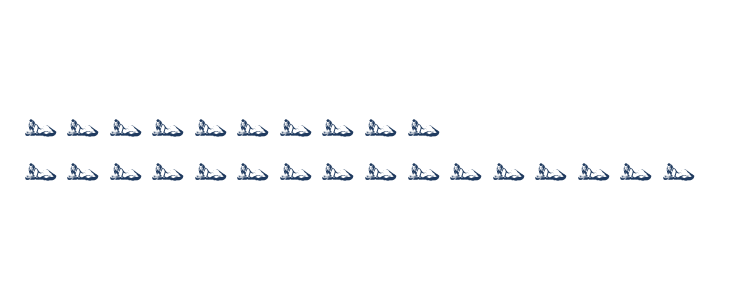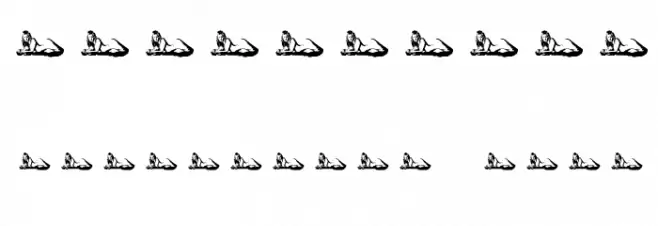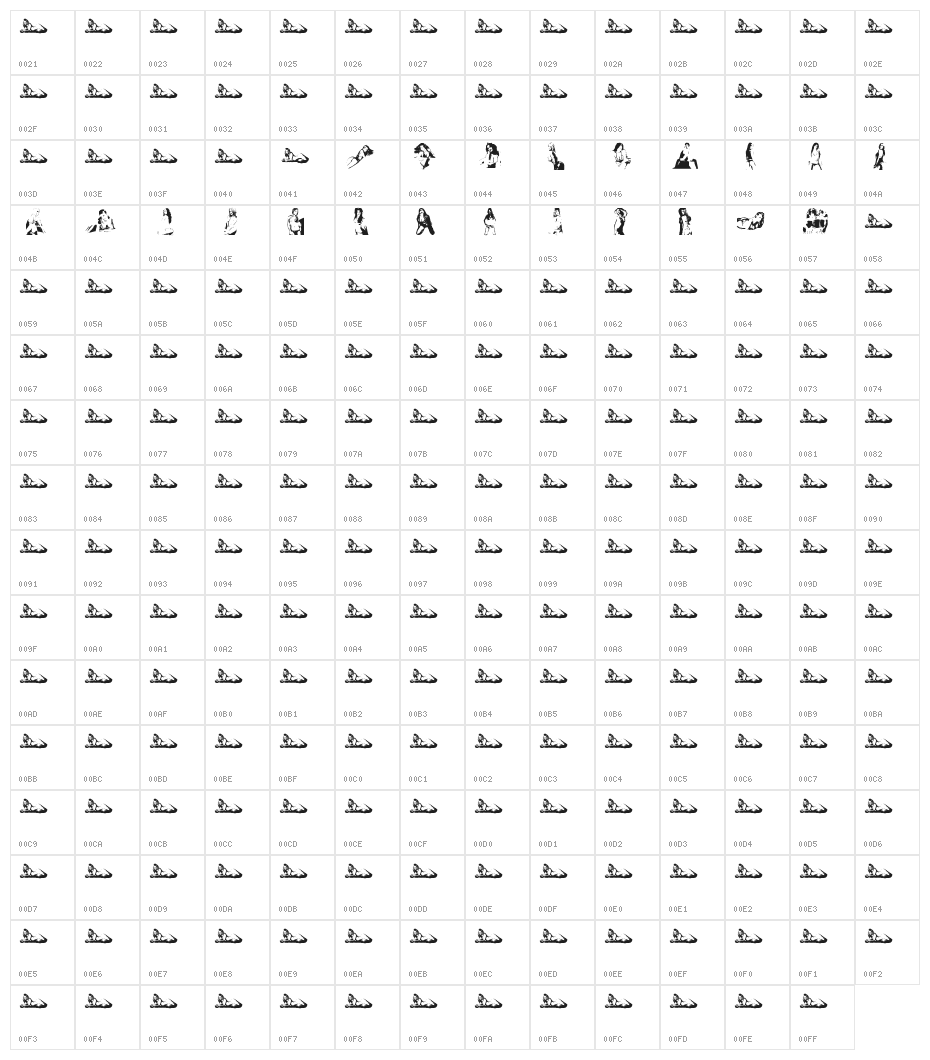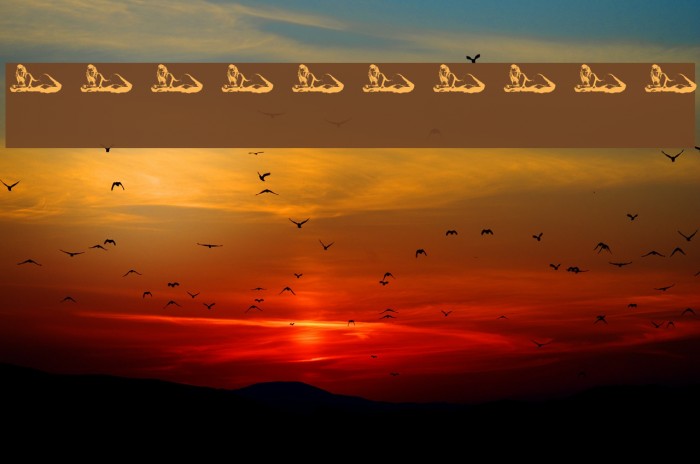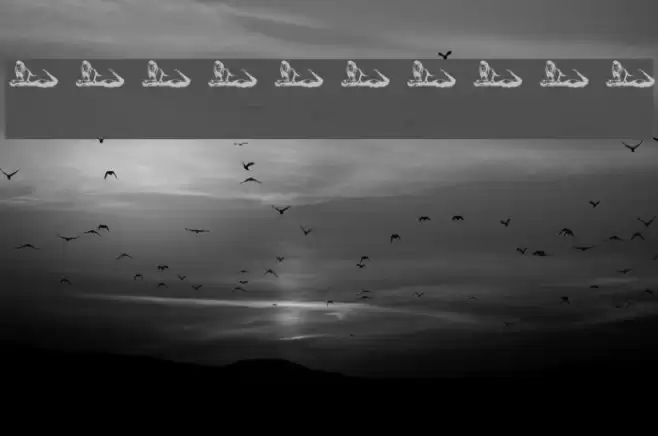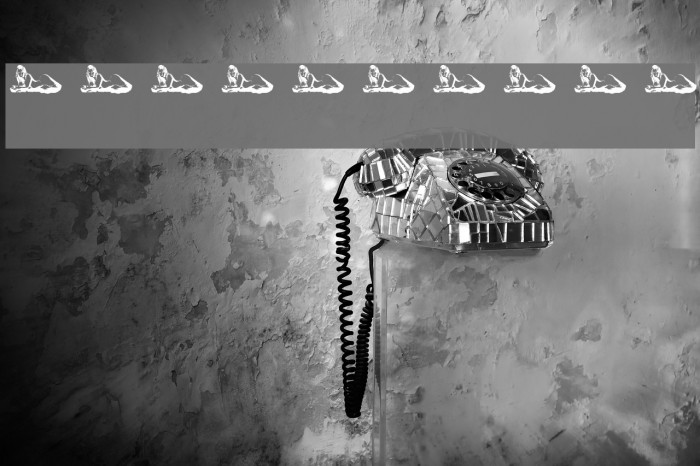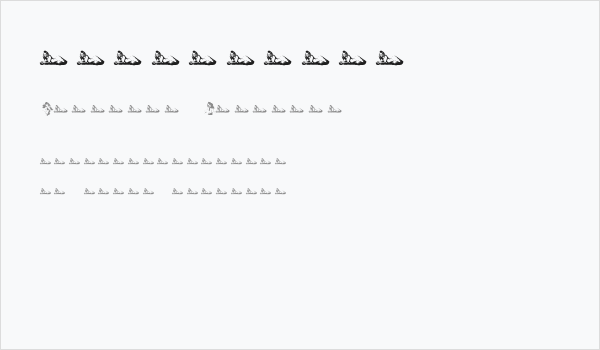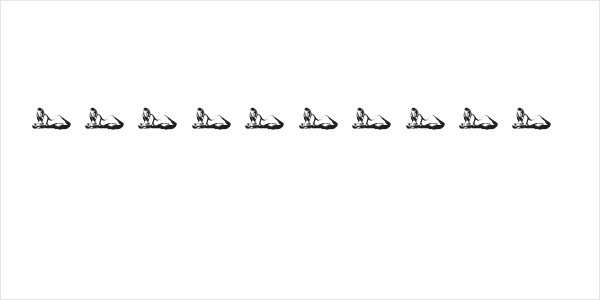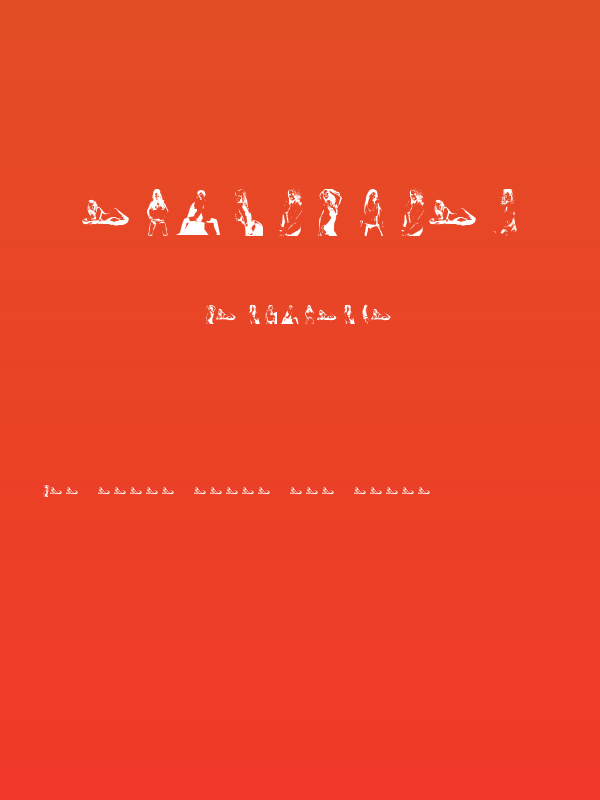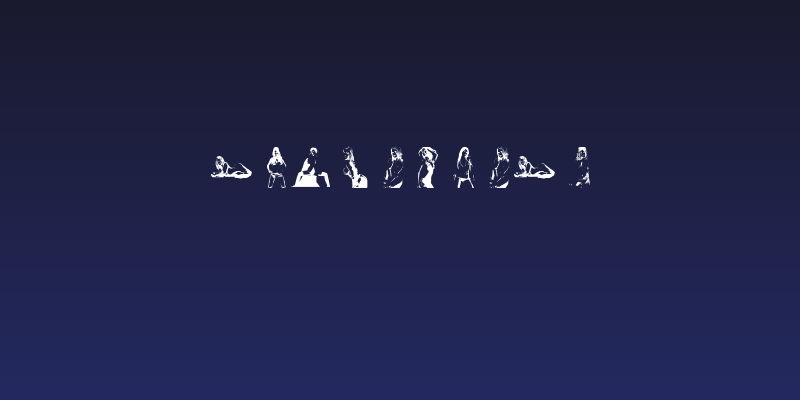
argentinas Font
argentinas Description
A decorative display font composed of black-and-white silhouette illustrations of women in various poses, with each character represented by a different figure or repeated motif. The style is highly illustrative and non-traditional, focusing on visual art rather than legibility.
| Overall Style | Decorative, Artistic, Novelty |
| Use Case | Logos, Posters, Artistic projects, Not suitable for body text |
| Proposed Projects | Posters, album covers, event flyers, novelty graphics, artistic branding. |